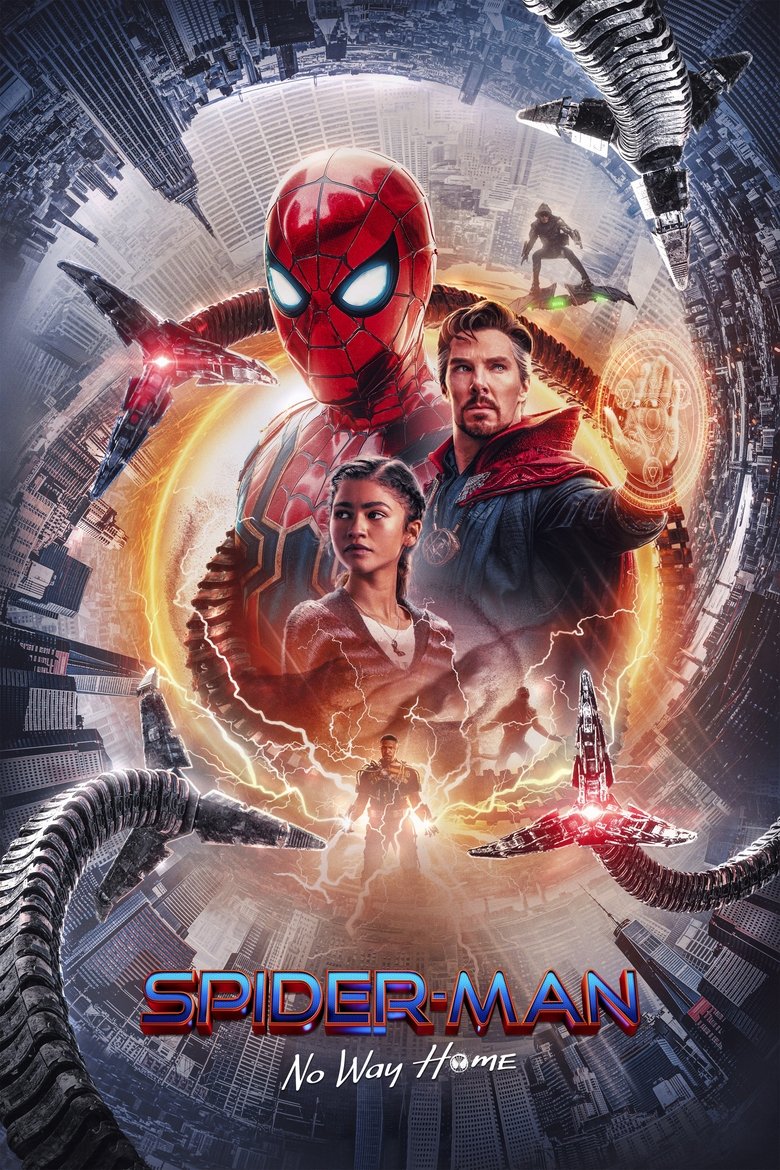
Spider-Man by the numbers
About the Spider-Man font
Spider-Man's titles lean on bold, energetic comic lettering. Bangers gives you that same loud, web-slinging comic-book shout with an open licence.
What font is used in the Spider-Man logo?+
The original Spider-Man logo uses custom lettering. This generator recreates the look with Bangers — a free, open-license font you can style and download.